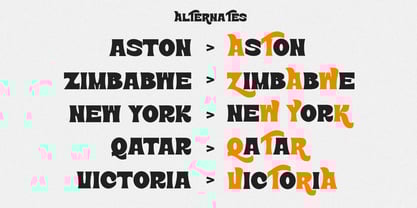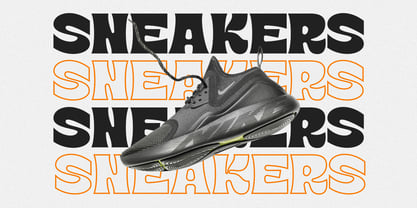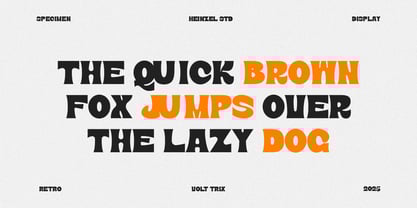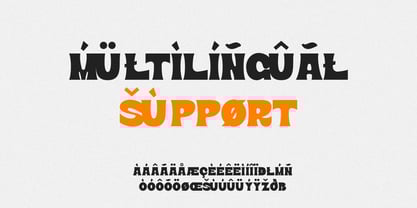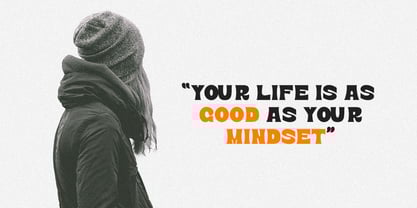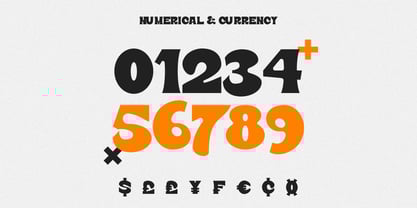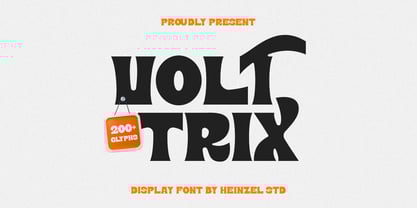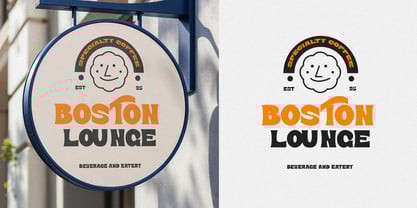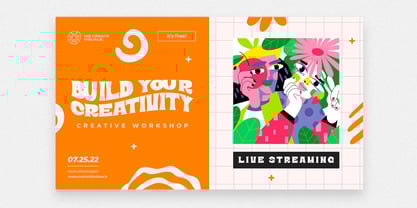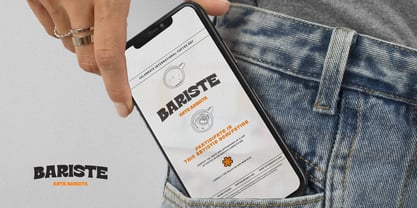
Volt Trix
by Heinzel Std
The Volt Trix Font Family was designed by Nofi Sofyan Hadi and published by Heinzel Std. Volt Trix contains 1 styles. More about this family
Volt Trix is a bold and playful display font designed for eye-catching titles, logos, posters, and branding projects. Featuring 200+ unique glyphs, Volt Trix brings a retro yet modern vibe that stands out in any design. Perfect for creatives seeking a powerful and character-rich display typeface. Whether you're crafting vintage-inspired graphics or modern bold layouts, Volt Trix ensures your typography captures attention instantly. Its fun character and distinctive silhouette make it a great choice for designers who want a memorable and expressive display font.
Designers: Nofi Sofyan Hadi
Foundry: Heinzel Std